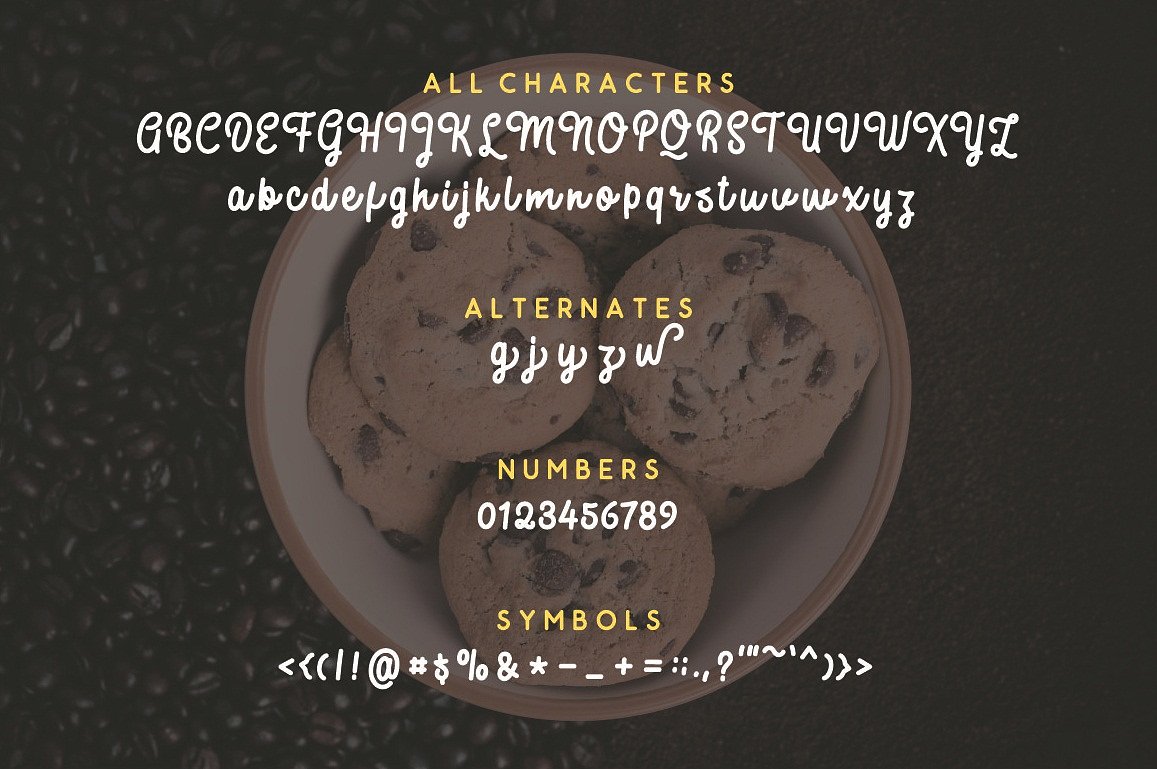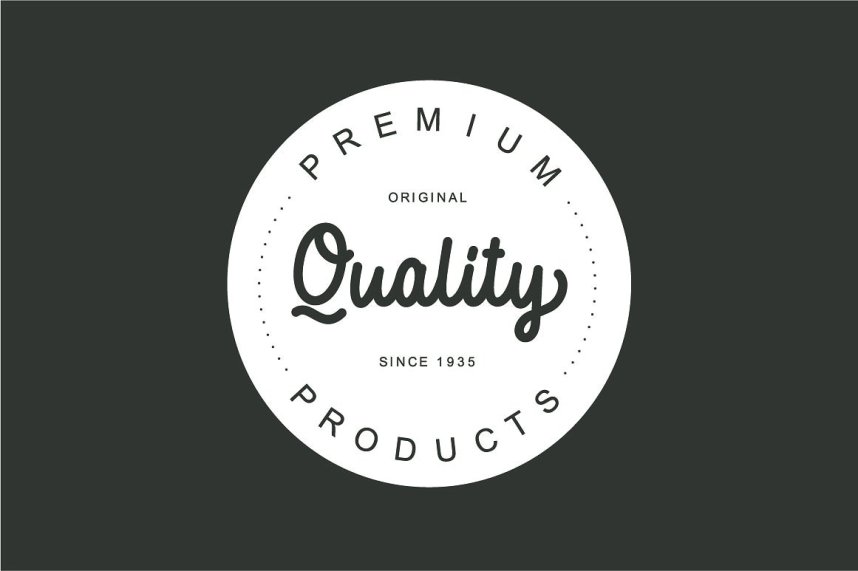
Sweaty Script Font
Introducing Sweaty Script Font! Sweaty designed by windestrian. Sweaty is a simple script typeface which is simple and funny. This font is perfect as a logo, quotes, apparel design, wedding invitation, and many more. You can use the alternate to create your own customized lettering.